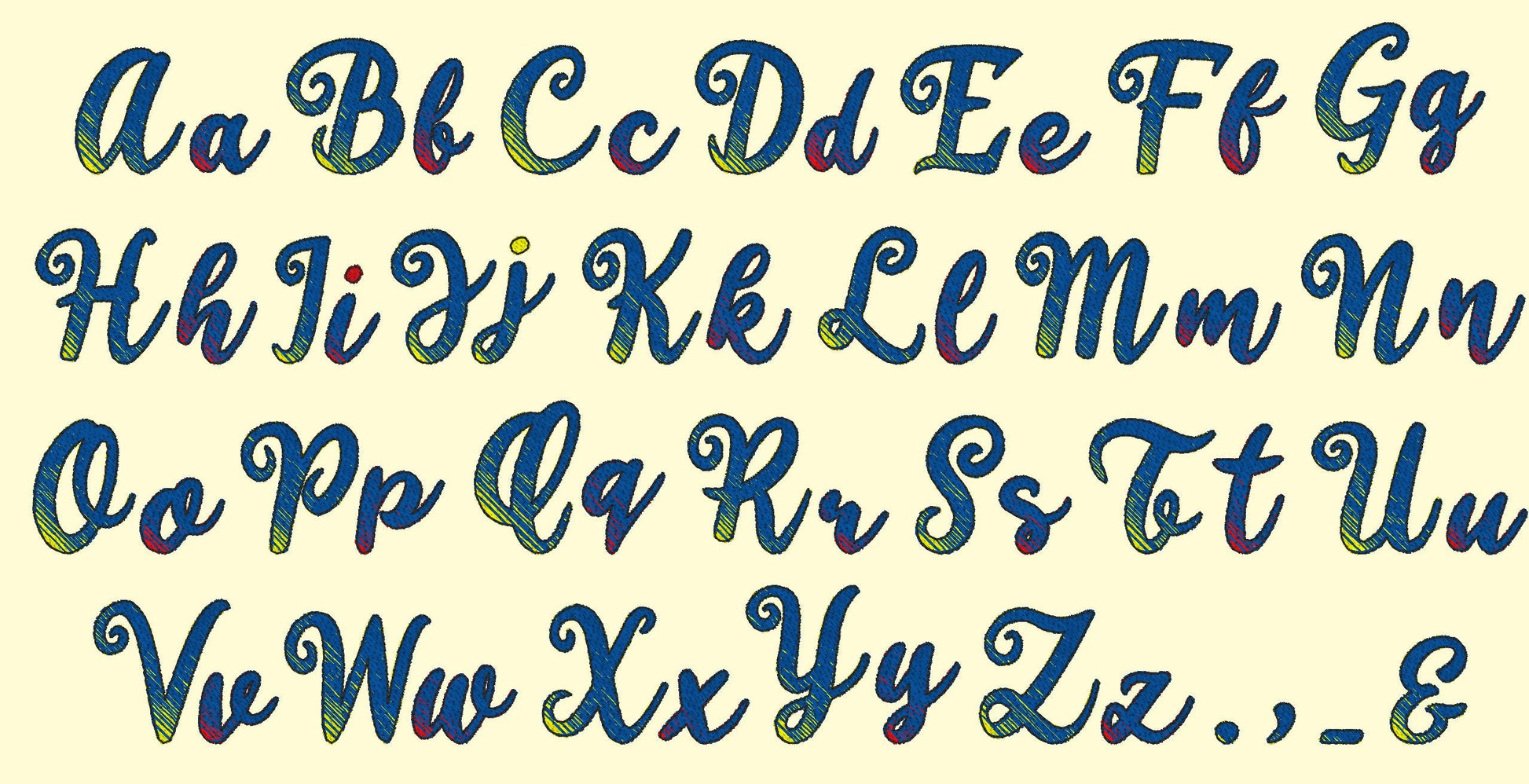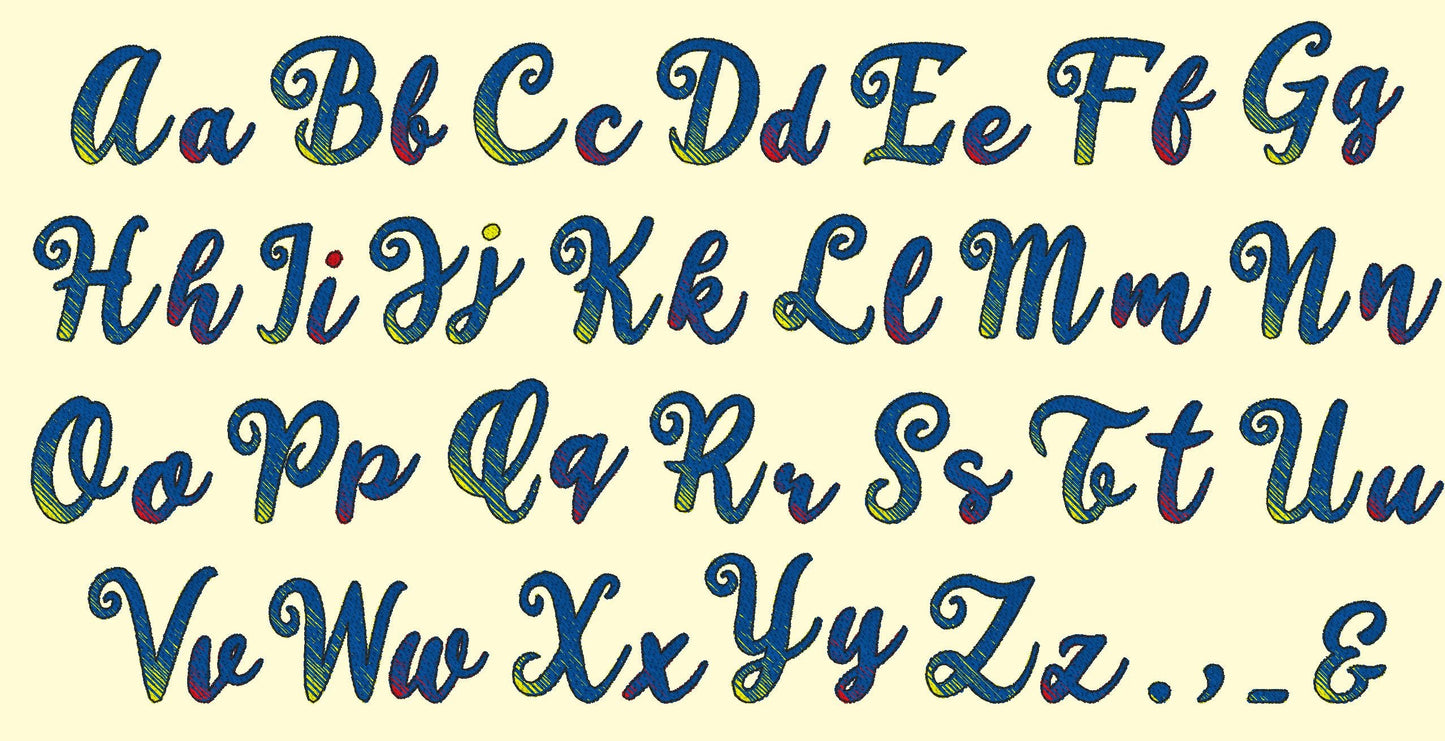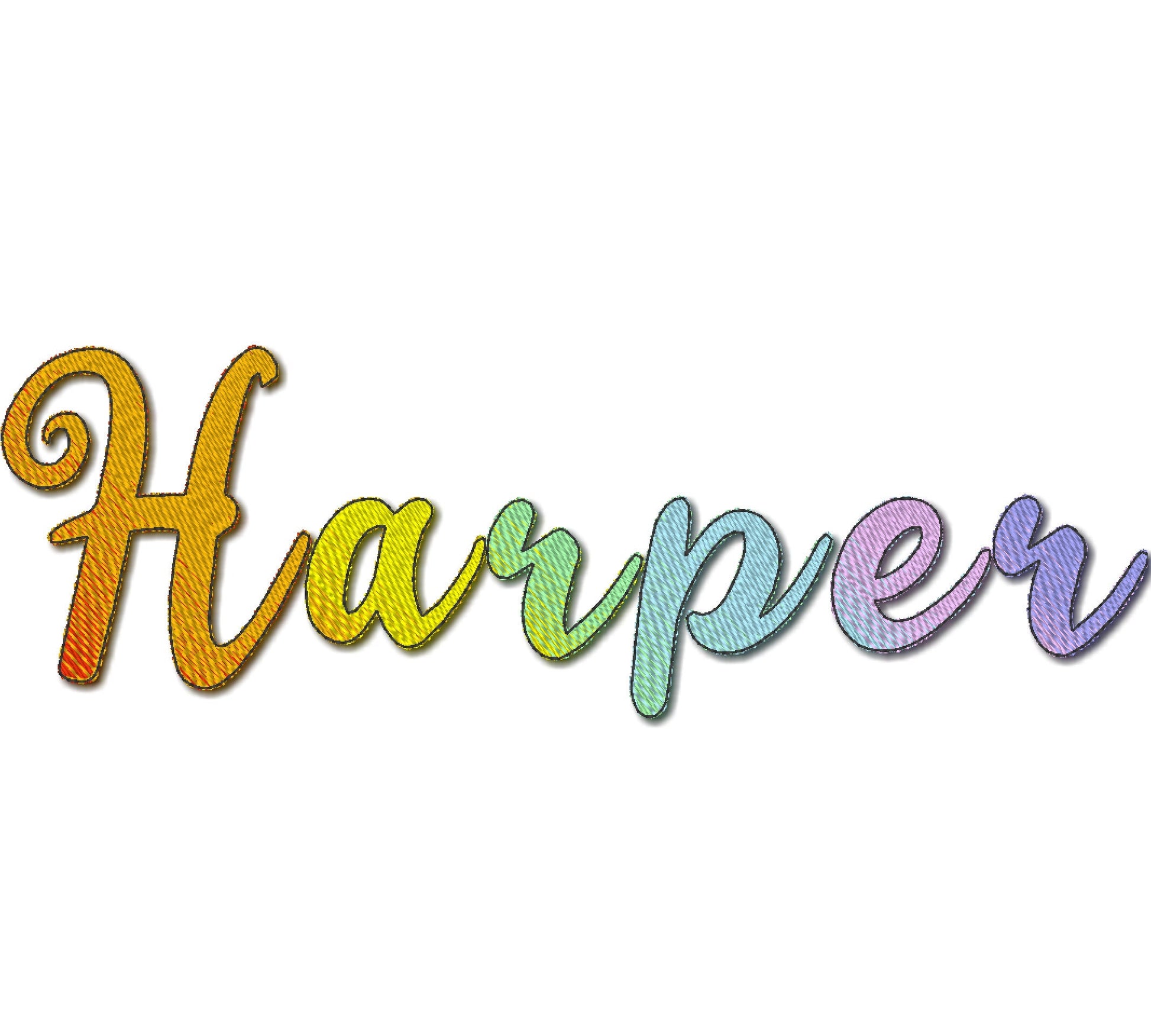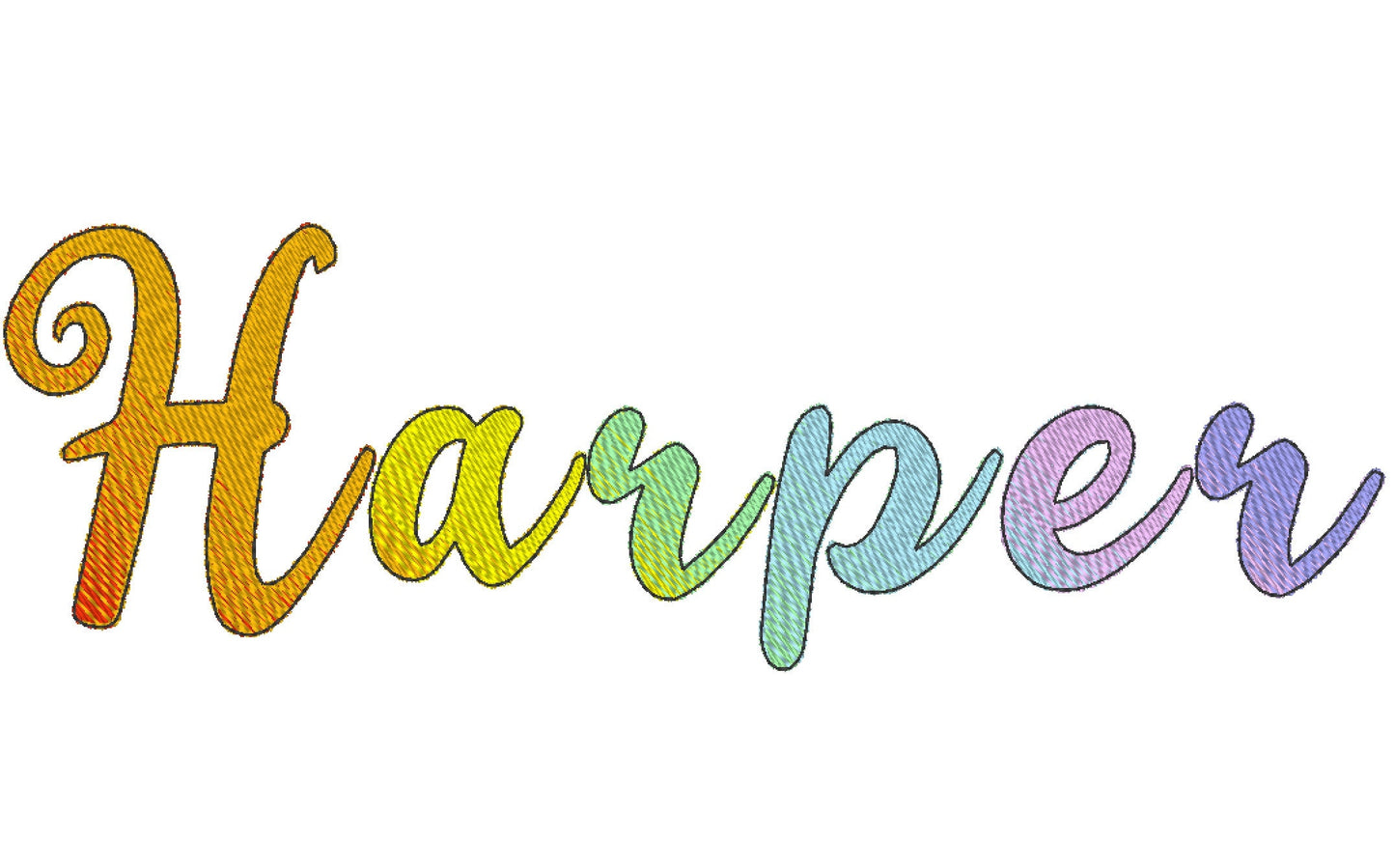
Iridescent Ombre Font Harper
Or click to open the linkBX included! NO special thread! Rainbow Iridescent 2 color FONT alphabet Embroidery designs, gradient embroidery font monogram
Punctuation included.